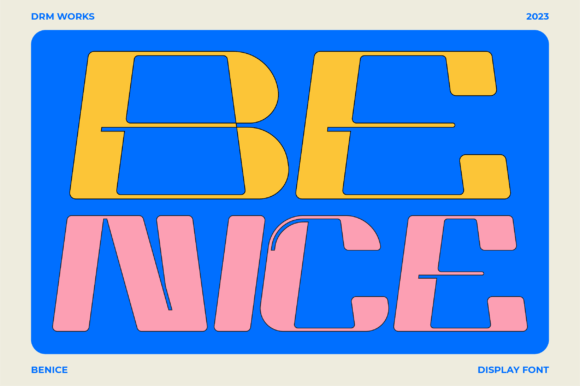
Unleash Your Creativity with the Perfect Display Font
Have you ever been brainstorming ideas for a new project, and suddenly, a spark of inspiration hits you? You envision a bold, eye-catching headline that screams excitement and energy. That’s exactly what the Benice Font is designed to deliver – a modern display font that’s super bold and perfect for making a statement.
Beneath its playful surface, the Benice Font is a versatile tool for designers. Whether you’re creating a logo, magazine, or branding materials, this font is sure to add a fun and dynamic touch to your project. With its wide range of applications, from stickers to sublimation, the Benice Font is an invaluable asset for any creative professional looking to elevate their work.
Key Features of Benice Font
- Size: The font family includes various weights, from Ultra Light to Extra Bold, catering to different design needs.
- Resolution: Benice Font is designed for high-resolution displays, making it ideal for use in digital media, such as websites, mobile apps, and social media platforms.
- Unique Characteristics: Benice Font features a clean, modern sans-serif design with subtle rounded edges, giving it a friendly and approachable feel.
- Scalability: Benice Font is highly scalable, allowing it to be used effectively in various contexts, from small text to large headlines.
Benice Font Review
Benice Font is a beautifully crafted font that offers a unique and elegant touch to any design project. ✨ One of its standout features is its versatility – it can be used for both headings and body text, making it a great all-around choice.
Some of the font’s notable strengths include:
- Its clean and minimalist design, which makes it perfect for modern and professional-looking designs.
- The font’s high legibility, even at smaller font sizes, ensuring that your text remains easy to read.
- Its unique character, which adds a touch of sophistication to any design.
- ⚠️ The font may not be suitable for more playful or casual designs, as it can come across as too formal or serious.
- ⚠️ Some users may find the font’s thin lines to be difficult to read in certain contexts, such as when used in bold or italics.
Overall, I would say that Benice Font is a solid choice for designers looking for a high-quality, elegant font. While it may not be the best fit for every project, it’s definitely worth considering for those looking to add a touch of sophistication to their designs.
The Benice Font is ideal for creating elegant and sophisticated designs, making it perfect for:
- Business cards and branding materials.
- Magazine and newspaper headlines.
Remember to use the Benice Font in moderation to avoid overwhelming your design.
Can I customize Benice Font?
Yes, Benice Font is designed to be highly customizable. It includes a wide range of OpenType features, such as ligatures, swashes, and stylistic sets, which can be accessed using software applications that support OpenType, such as Adobe Creative Cloud. Additionally, you can also use font editing software to customize the font to your specific needs.